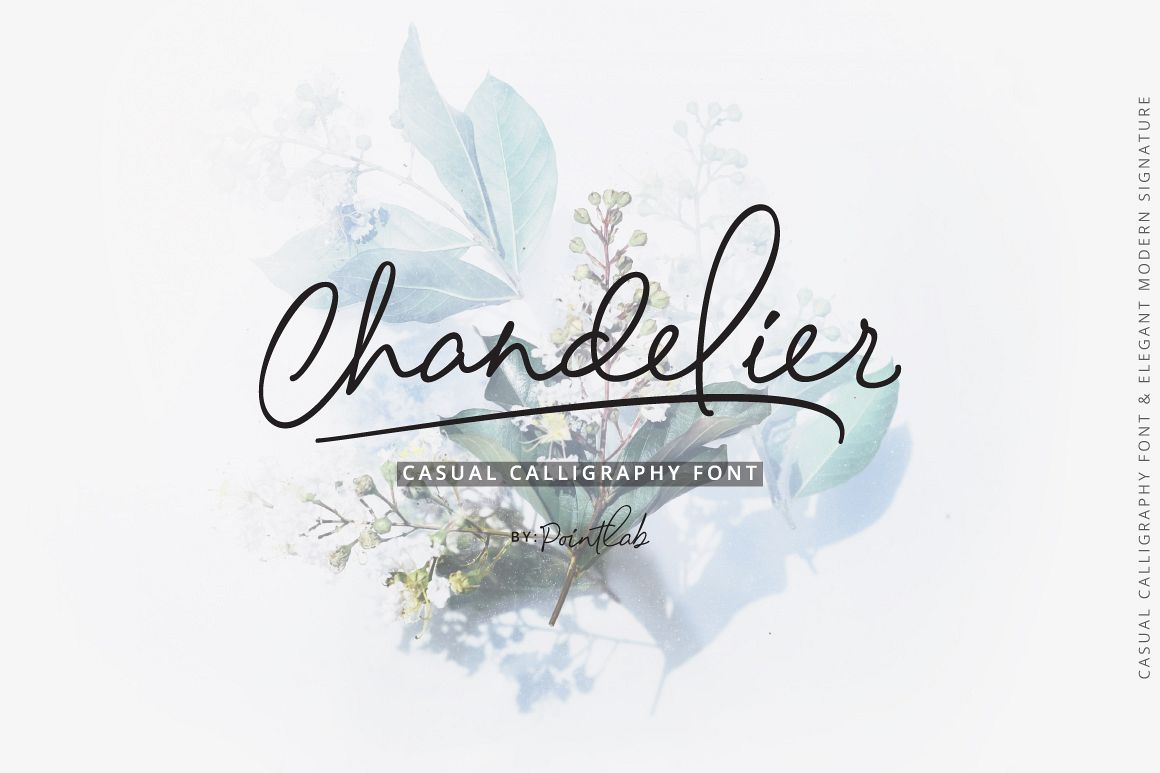
Chandelier Signature
IntroducingChandelier Signature a new fresh & modern script with a handmade calligraphy style, decorative characters and a dancing baseline! So beautiful on invitation like greeting cards, branding materials, business cards, quotes, posters, and more!!Chandelier Signature come with 530 glyphs+. The alternative characters were divided into several Open Type features such as Swash, Stylistic Sets, Stylistic Alternates, and Ligature. The Open Type features can be accessed by using Open Type savvy programs such as Adobe Illustrator, Adobe InDesign, Adobe Photoshop Corel Draw X version, And Microsoft Word. And this Font has given PUA unicode (specially coded fonts). so that all the alternate characters can easily be accessed in full by a craftsman or designer.Chandelier Signature Features :